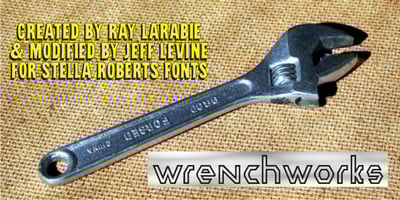
Wrenchworks SRF Font Family was designed by published by Stella Roberts Fonts. Wrenchworks SRF contains 1 styles and family package options. The 80s era of techno/angular/mechanical fonts is typified in Wrenchworks SRF. The original design is by Ray Larabie with a remix by Jeff Levine. The net profits from my font sales help defer medical expenses for my siblings, who both suffer with Cystic Fibrosis and diabetes. Thank you.